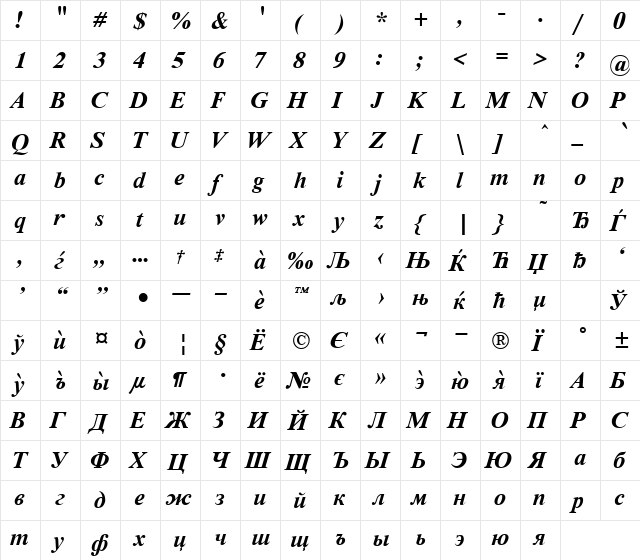
TmsCyr Bold Italic
Design Context for TmsCyr Typeface
TmsCyr takes a measured approach to typography — its balanced proportions and neutral character make it a reliable workhorse for both digital and print work. The slanted form adds forward momentum and visual energy. Its bold stroke weight gives it real presence on the page.
Pro Tip: Try TmsCyr for annotation and caption copy alongside an upright companion — the contrast in angle creates a dynamic but ordered typographic system.